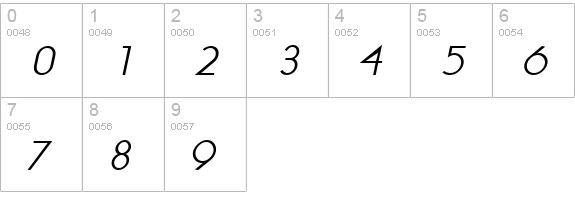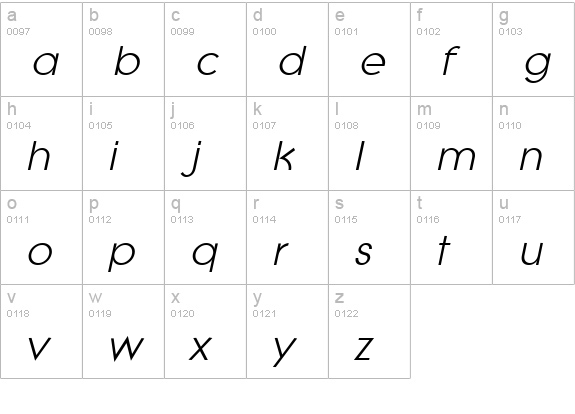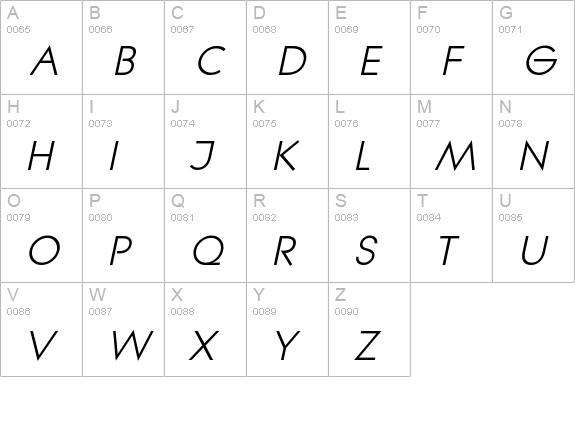
Lithe Italic is a distinctive, italic variant in the Lithe typeface family \xE2\x80\x94 well suited to design and typography projects.
Lithe Italic font is a stunning typeface that exudes elegance and sophistication. Its sleek and slender design gives it a modern and stylish look, making it perfect for a wide range of design projects. The italicized style adds a touch of flair and creativity to any text, making it stand out from the crowd. What's even better is that Lithe Italic font is available for free download at FontsMarket.com. This means that you can easily access this beautiful font without any cost, making it a valuable addition to your font collection. Don't miss out on the opportunity to enhance your designs with the beauty and versatility of Lithe Italic font. Download it today and elevate your projects to new heights of creativity and professionalism.